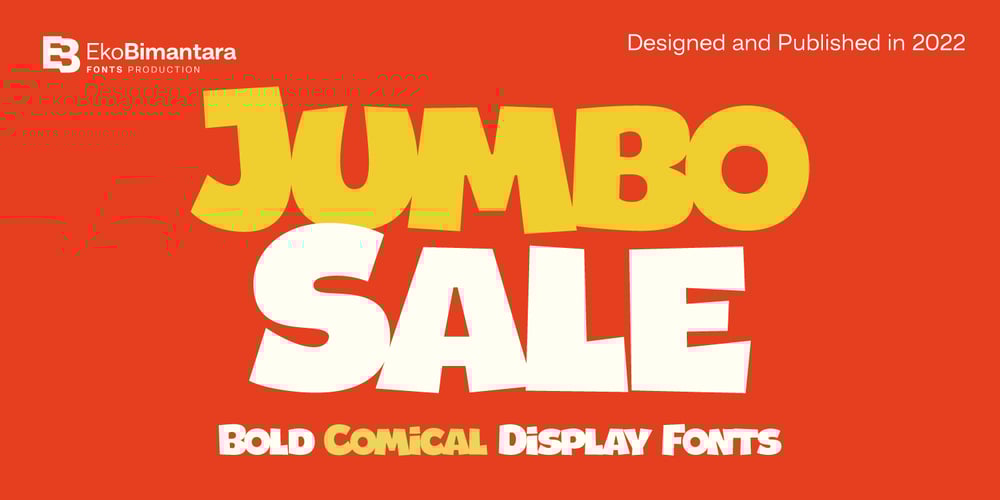
Jumbo Sale Font Family was designed by Eko Bimantara and published by Eko Bimantara. Jumbo Sale contains 1 styles and family package options. Jumbo Sale is a bold and comical display font designed and published by Eko Bimantara in August 2022. This font has fun, bold and loud characteristics. Fit for titles, brand, product packaging and big size display. It has more than 300 glyphs which cover broad latin languages.